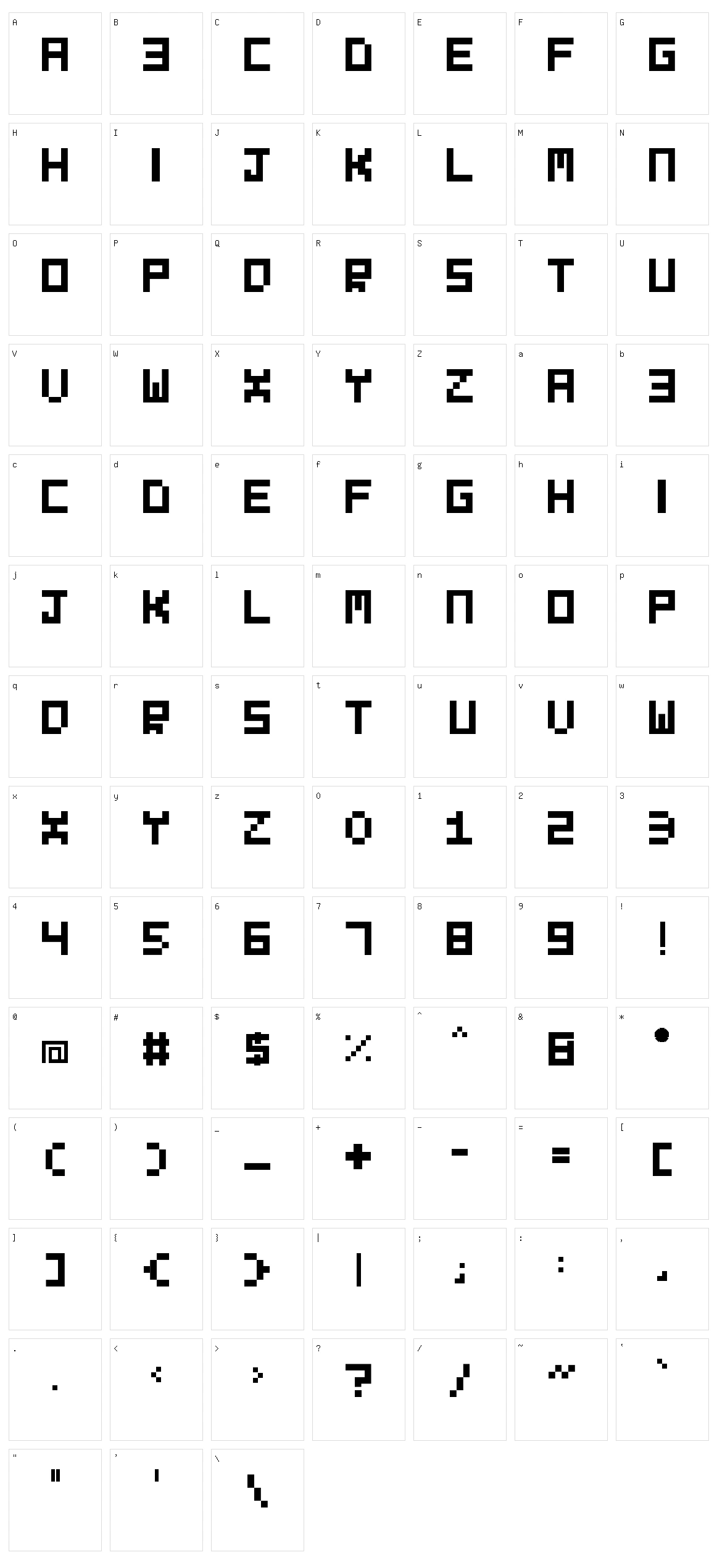
The free font Evilborn is carefully designed by John Tuna, showcasing a thoughtful balance of creativity and usability and falls under the Square font style. When you download the ZIP file, it contains only 53.25 KB of font files, making it lightweight and quick to download. Please review the license details below to understand permitted usage and distribution rights. If license information is not available, we recommend using this font for personal projects only or contacting the author directly for commercial usage permissions.